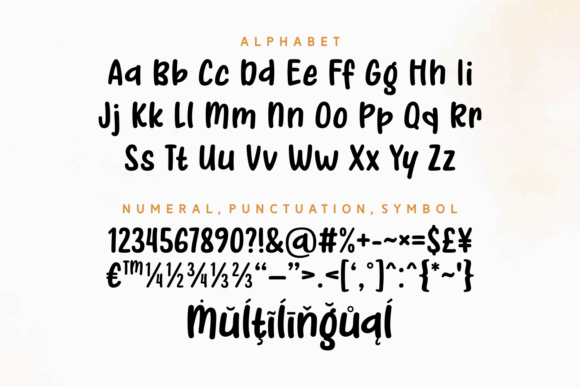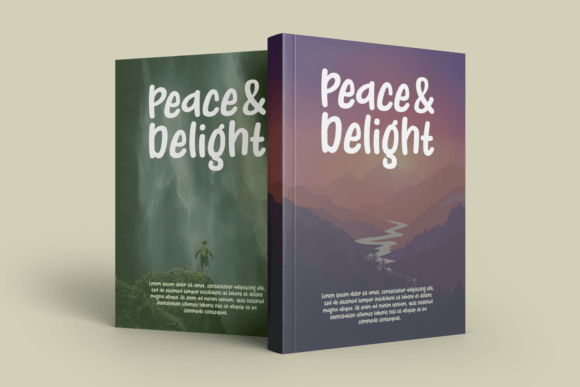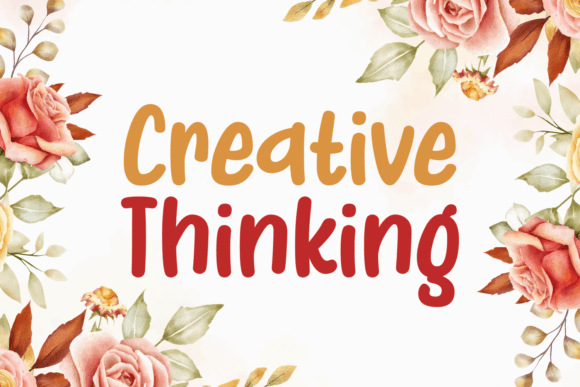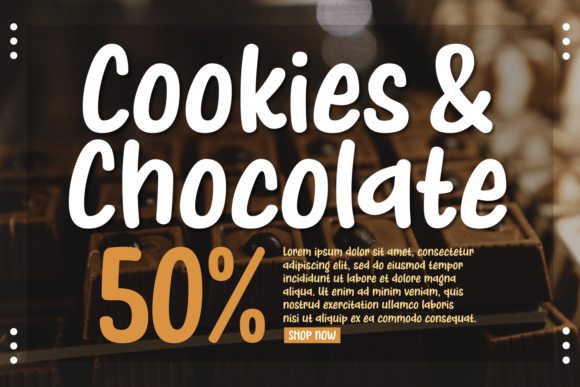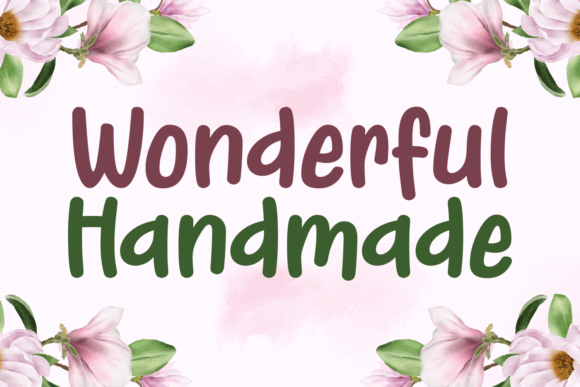
Unleashing the Beauty of Handmade Design
Do you ever find yourself staring at a blank canvas, waiting for the perfect idea to strike? For many creatives, it’s that moment when inspiration hits and the imagination runs wild. It’s the spark that sets off a chain reaction of creativity, leading to innovative designs and beautiful typography.
Enter the Beautify Handmade Font, a stunning display font that’s sure to captivate your audience. With its flowing characters and lovely rhythm, this elegant design is the perfect addition to any project. Whether you’re crafting a logo, designing a card, or building a website, Beautify Handmade Font brings a touch of sophistication and whimsy to your work.
Beautify Handmade Font Key Features
- Unique Characteristics: Hand-drawn design with a mix of modern and vintage elements, perfect for adding a personal touch to your designs.
- Language Support: Supports a wide range of languages, including Latin, Cyrillic, Greek, and more.
- Font Weight: Available in Light, Regular, Bold, and Black weights for added versatility.
Beautify Handmade Font Review
Beautify Handmade Font has a certain charm to it ✨. I appreciate the unique, hand-drawn feel and the subtle texture that gives it a personal touch. The font is perfect for projects that require a whimsical or artistic flair. It’s also great for branding or marketing materials that want to stand out from the crowd.
- Unique, hand-drawn design ✨
- Subtle texture adds depth and interest ✨
- Perfect for projects that require a whimsical or artistic flair ✨
- Great for branding or marketing materials that want to stand out ✨
However, there are some limitations to consider ⚠️. The font is not as versatile as some other fonts on the market, and it may not be the best choice for body text or large blocks of text. Additionally, the texture can sometimes be overwhelming, making it difficult to read.
- Not as versatile as other fonts ⚠️
- Not ideal for body text or large blocks of text ⚠️
- Texture can be overwhelming ⚠️
Overall, Beautify Handmade Font is a great choice for projects that require a unique and artistic touch. While it may not be the best choice for every project, it’s definitely worth considering for the right type of design.
For the best results, use Beautify Handmade Font in combination with bold or italic styles to add emphasis to your text. Experiment with different font sizes and colors to create a unique and eye-catching design.
Beautify Handmade Font is perfect for crafting invitations, wedding stationery, and other special occasion materials. It’s also great for creating a vintage or rustic feel in your designs.